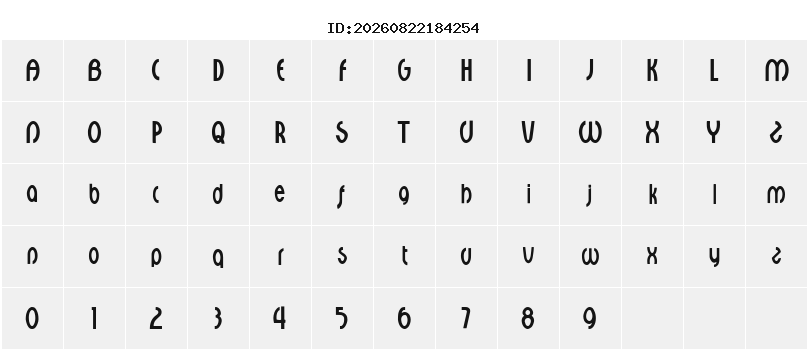
Sceptre Preview
• Font Name: Sceptre
• Full Font Name: Sceptre Regular
About Sceptre.ttf
Sceptre.ttf is a modern, elegant sans-serif font designed for ultimate readability and visual harmony. Perfect for branding, headlines, web design, and print materials.